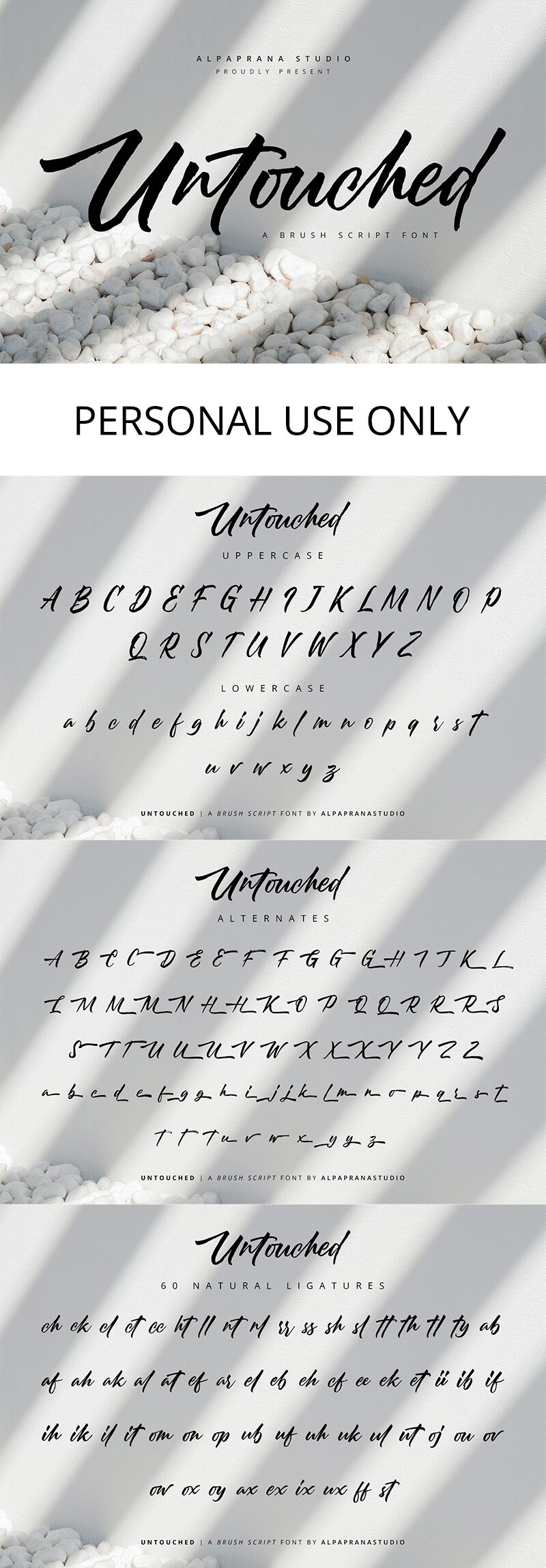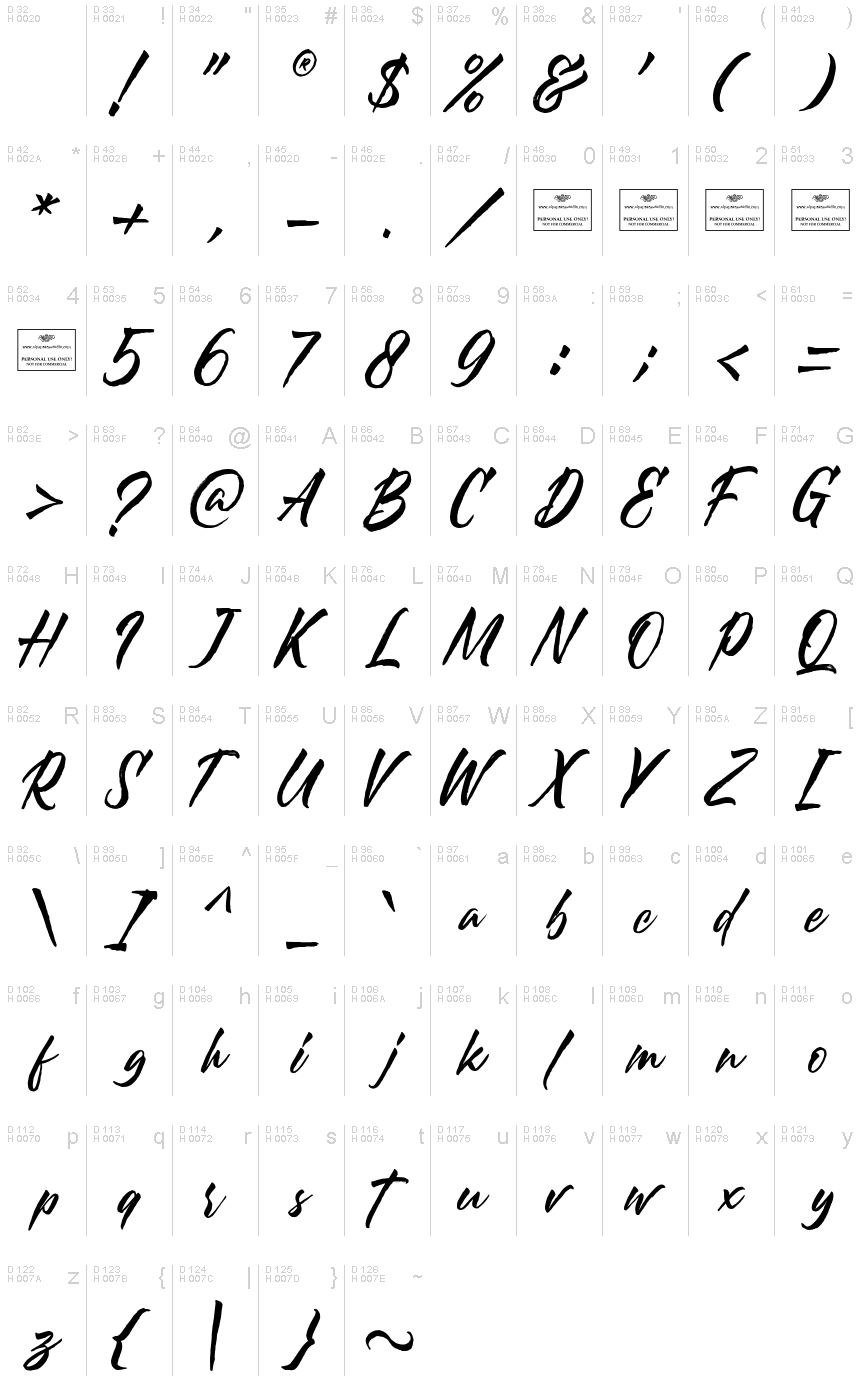
Untouched
Untouched, a captivating brush font crafted by Alpaprana Studio, exudes a raw, organic elegance. Its bold, expressive strokes evoke a sense of movement and dynamism, lending an air of effortless sophistication to any design. The condensed width adds a touch of refined intensity, making this font a standout choice for headers, logotypes, and attention-grabbing displays.
Untouched's versatility shines through, making it a versatile addition to designers' toolkits. Its bold, impactful presence lends itself well to branding and packaging applications, where it can command attention and convey a distinct, artisanal aesthetic. Additionally, the font's versatility extends to editorial and publishing contexts, where its striking visual impact can elevate headings, subheadings, and distinctive text elements.